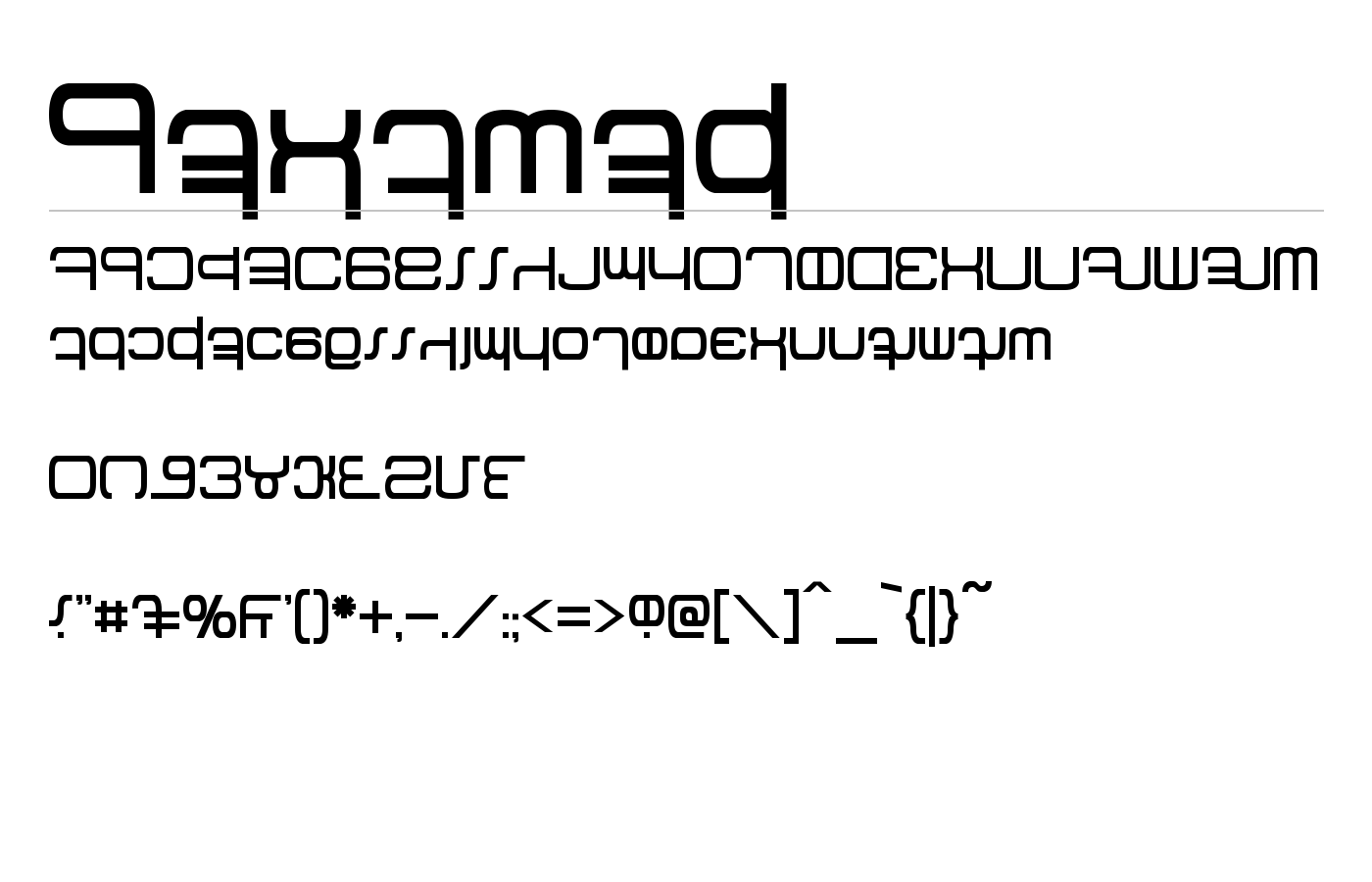
Betazed is a sleek, futuristic sans serif font with a condensed width and uniform medium weight, featuring rounded corners and a clean, geometric stroke style. Its high x-height and minimalist letterforms create a modern, tech-forward feel that works well for branding, digital interfaces, and sci-fi-themed designs. This font’s unique shapes and tight spacing make it ideal for headlines and display use, conveying innovation and a cutting-edge aesthetic.
Betazed Font
About Betazed Font